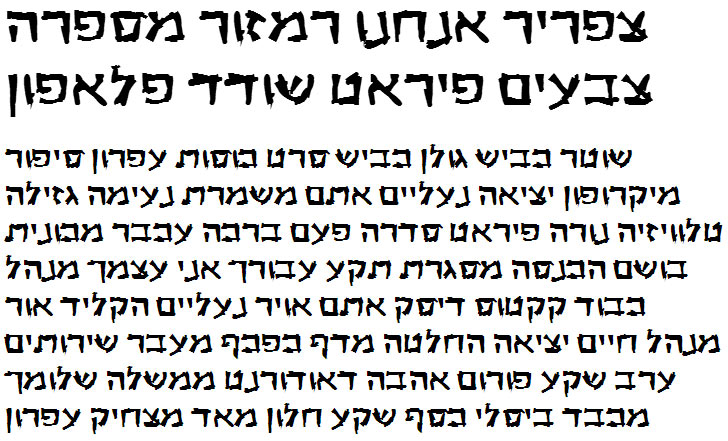
✓ A re-doodling of the "Choco" font gave birth to this letterface, that looks very disorganized, yet fashions a quite conspicious order in its basic shapes. The term Anarchy succesfully links with the nature of this font, which maintains a sense of form and order while being chaotic in its inner strokes.
Anarchy Bold Hebrew Font
โœ“ ืฉืจื˜ื•ื˜ ืžื—ื“ืฉ ืฉืœ ื”ื’ื•ืคืŸ "ืฉื•ืงื•" ื”ื•ืœื™ื“ ืืช ื”ืžื›ืชื‘ ื”ื–ื”, ืฉื ืจืื” ืžืื•ื“ ืœื ืžืื•ืจื’ืŸ, ื•ืขื ื–ืืช ืžื™ื™ืฆืจ ืกื“ืจ ื“ื™ ื‘ื•ืœื˜ ื‘ืฆื•ืจื•ืช ื”ื‘ืกื™ืกื™ื•ืช ืฉืœื•. ื”ืžื•ื ื— ืื ืจื›ื™ื” ืžืชืงืฉืจ ื‘ื”ืฆืœื—ื” ืขื ืื•ืคื™ื• ืฉืœ ื”ื’ื•ืคืŸ ื”ื–ื”, ืฉืฉื•ืžืจ ืขืœ ืชื—ื•ืฉืช ืฆื•ืจื” ื•ืกื“ืจ ืชื•ืš ืฉื”ื•ื ื›ืื•ื˜ื™ ื‘ืžื”ืœื›ื™ื ื”ืคื ื™ืžื™ื™ื ืฉืœื•.